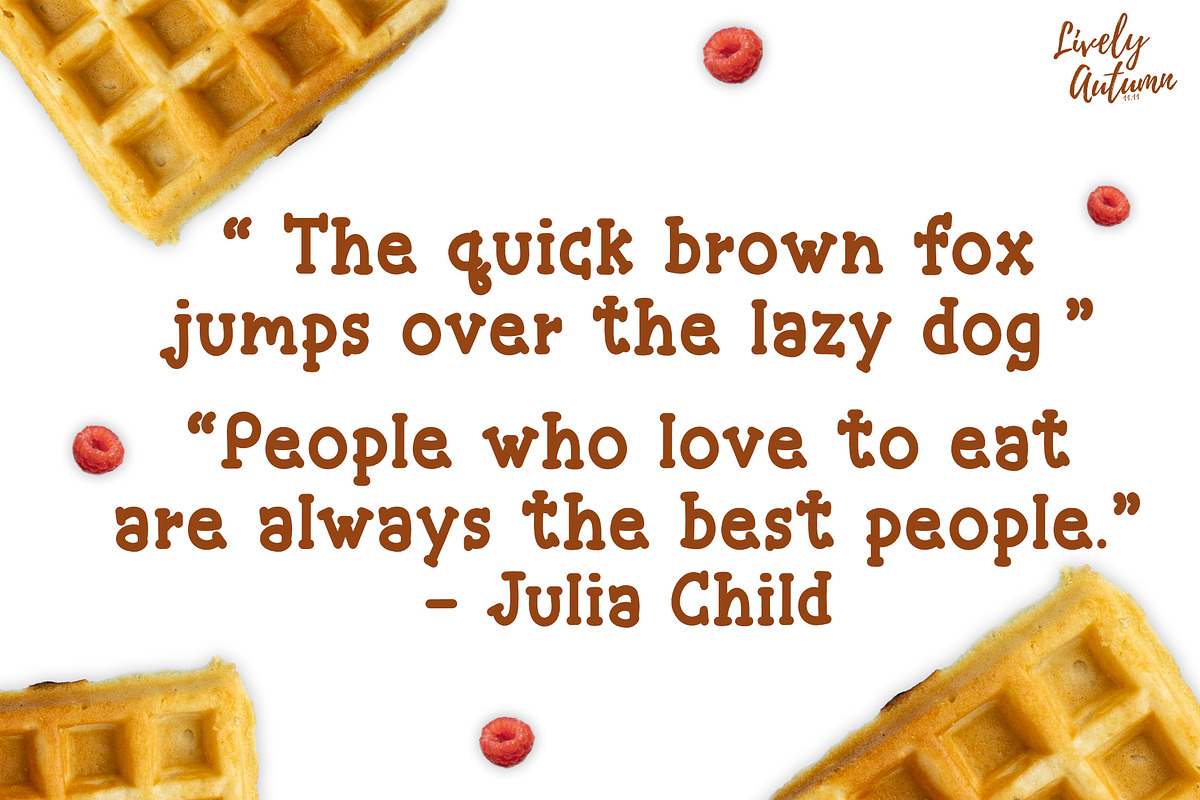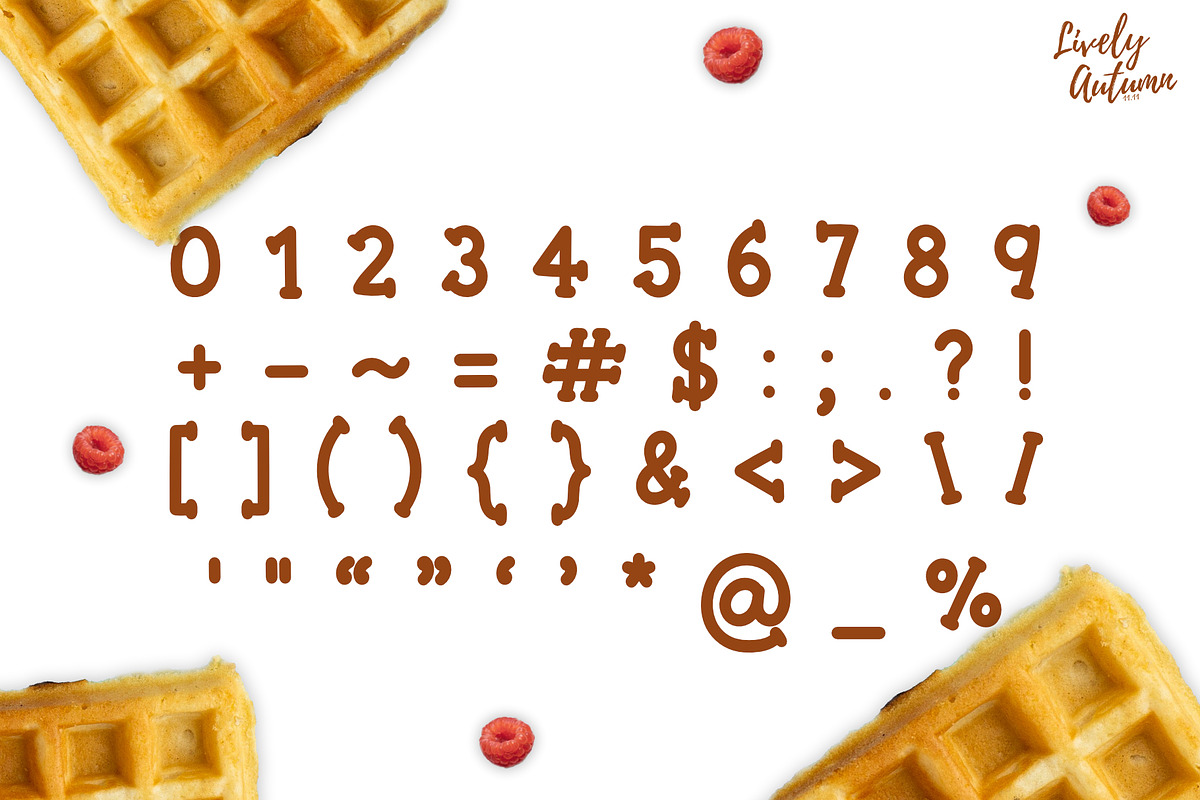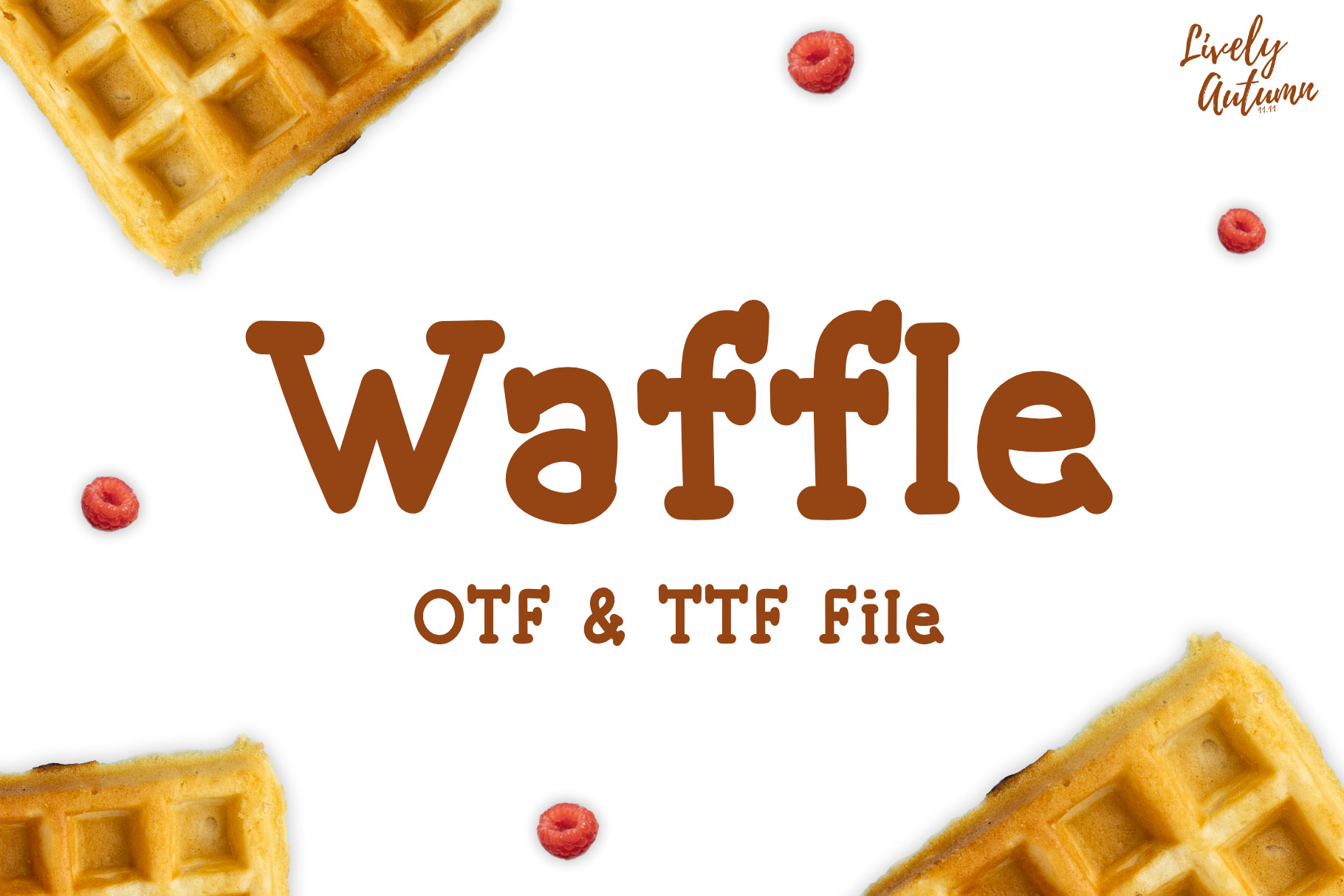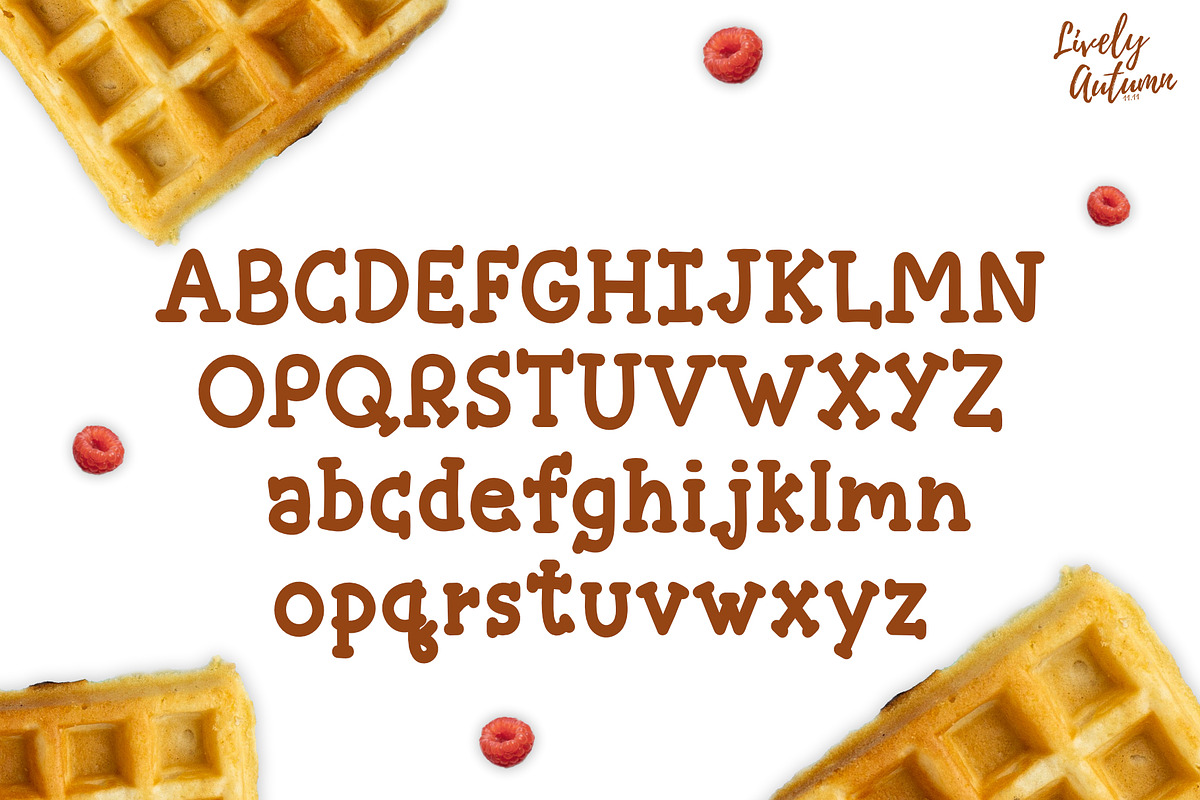
Waffle Font
Waffle Font is a simple serif handwriting font. Perfect for your personal projects and various projects. From invitations to posters, social media graphics, journals, and much more.